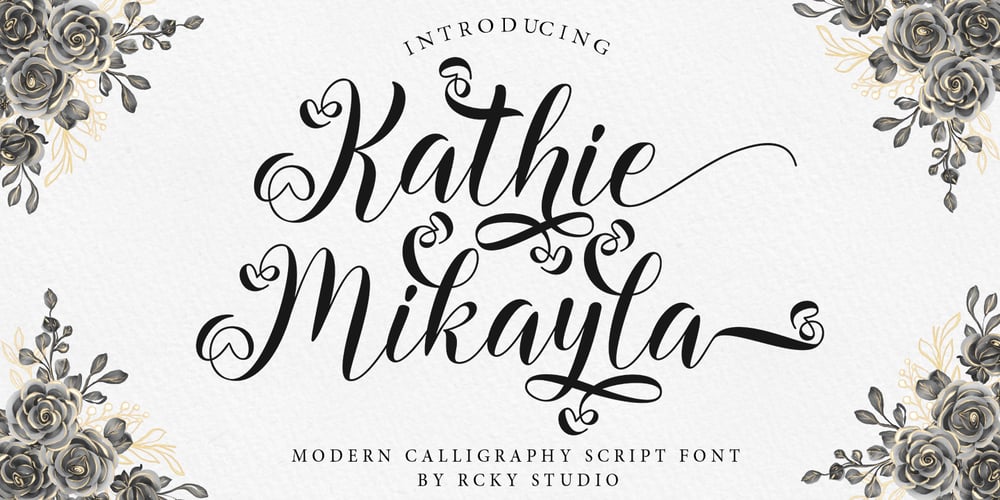
Kathie Mikayla Font Family was designed by Rizki Agam Fonna and published by RCKY Studio. Kathie Mikayla contains 1 styles and family package options. Kathie Mikayla is a light, beautiful and modern calligraphy font with a sophisticated flow. This is a very versatile font that works in both large and small sizes. Perfect for editorial projects, Logo design, Apparel Branding, product packaging, magazine headers or simply as a stylish text overlay onto any background image.Kathie Mikayla includes a full set of Uppercase and Lowercase Basic Characters, Numbers and Punctuation. This font has multilingual support, Also contains many alternative styles to recreate natural calligraphy perfectly.